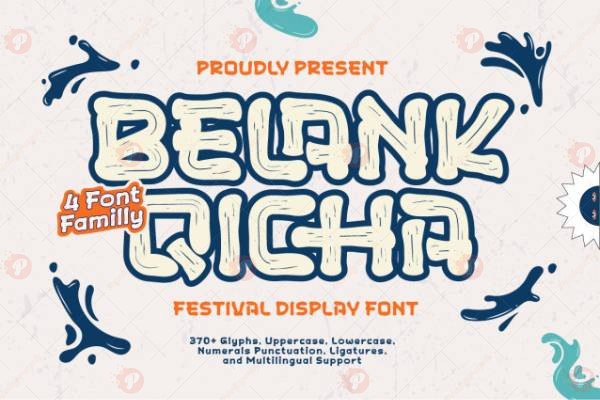
The Belank Qicha Free Font is a vibrant festival-inspired display typeface, perfect for event posters, invitations, social media graphics, logos, banners, and branding. Its festive and eye-catching design brings energy and celebration to every project.
Ideal for digital and print designs, Belank Qicha Free adds color, style, and a cheerful vibe to your creative work.
Style: Festival / Display / Creative Typeface
Bring excitement and festivity to your projects with the Belank Qicha Free Font.